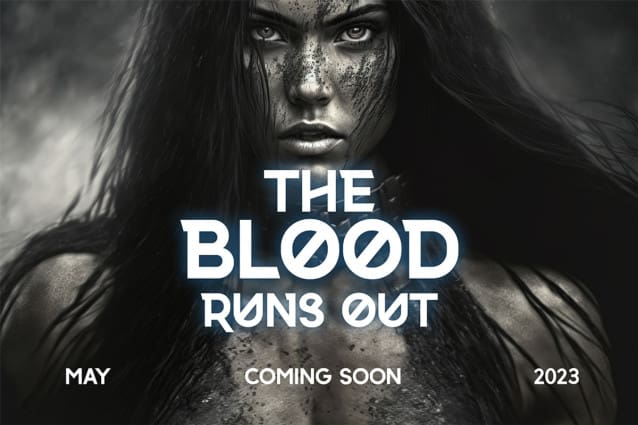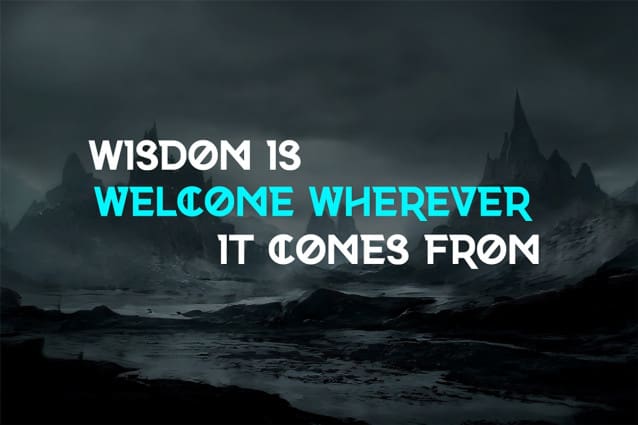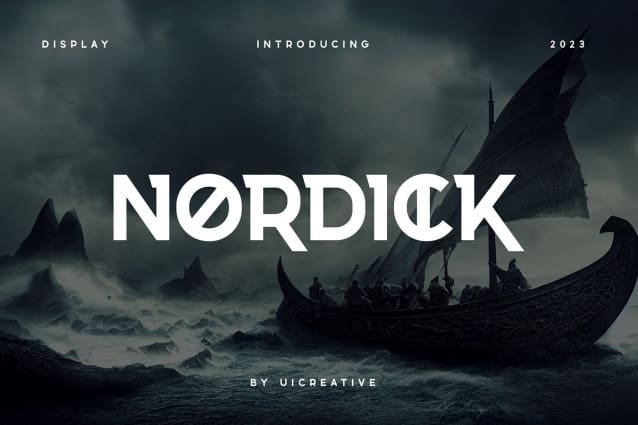
Nordick Font
Nordick Font – Modern fonts bring a beautiful feeling of luxury, elegance and modernity. This font is ideally suited for a wide variety of projects, such as signature, stationery, logo, wedding, typography quotes, magazine or book covers, website headers, clothing, branding, packaging design, and more. Also, fashion-related branding or editorial design displays both masculine and feminine qualities.